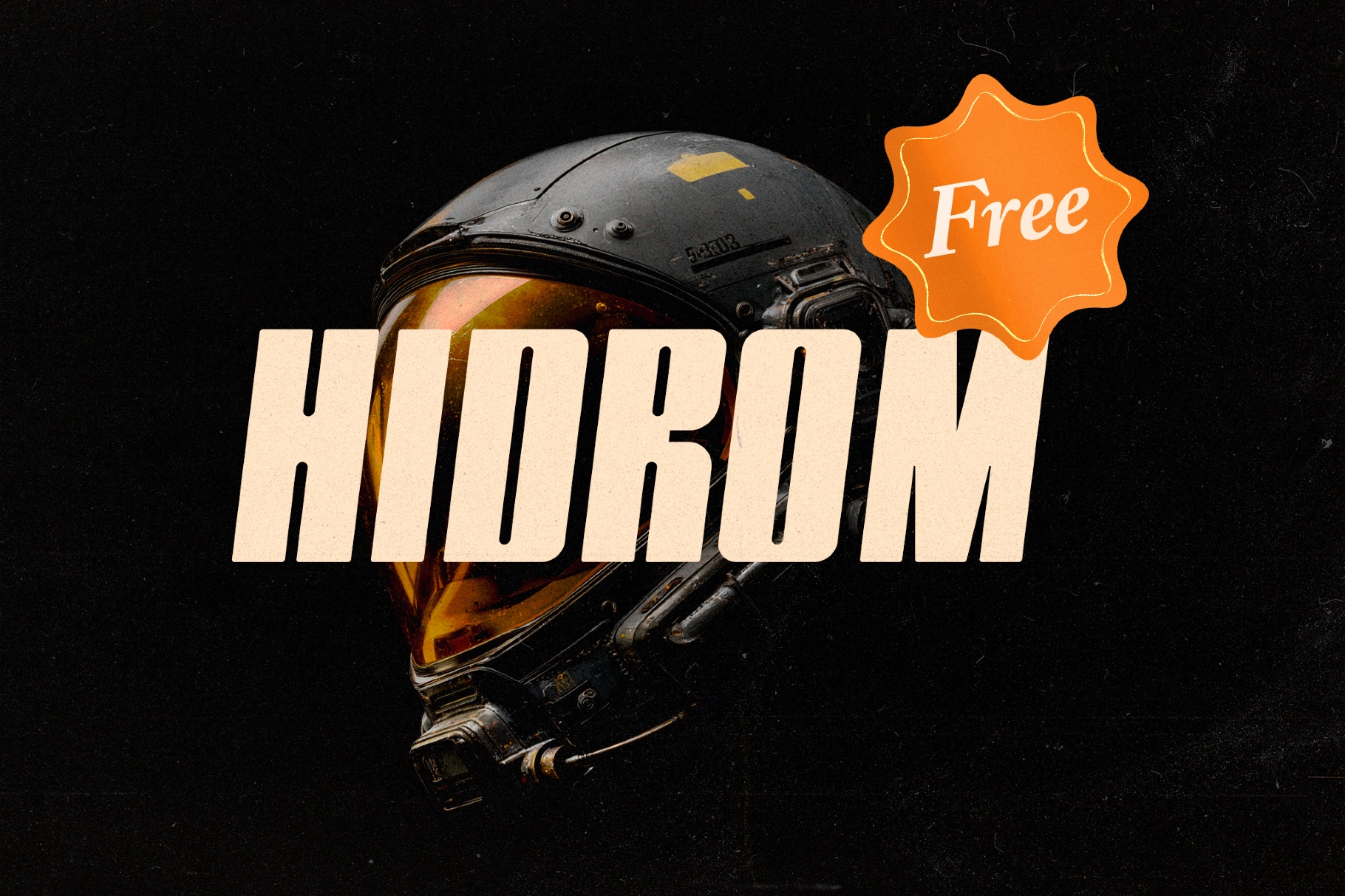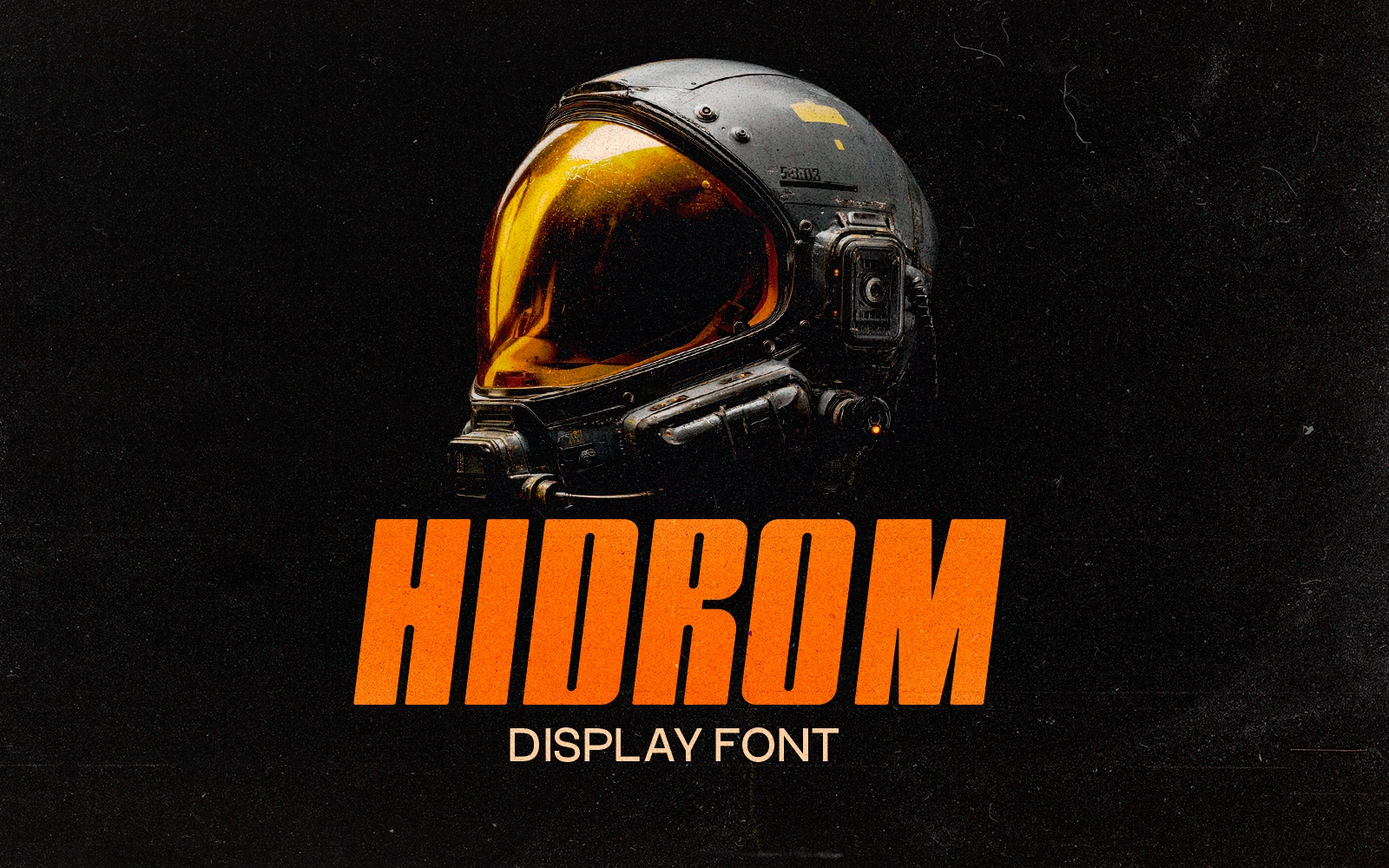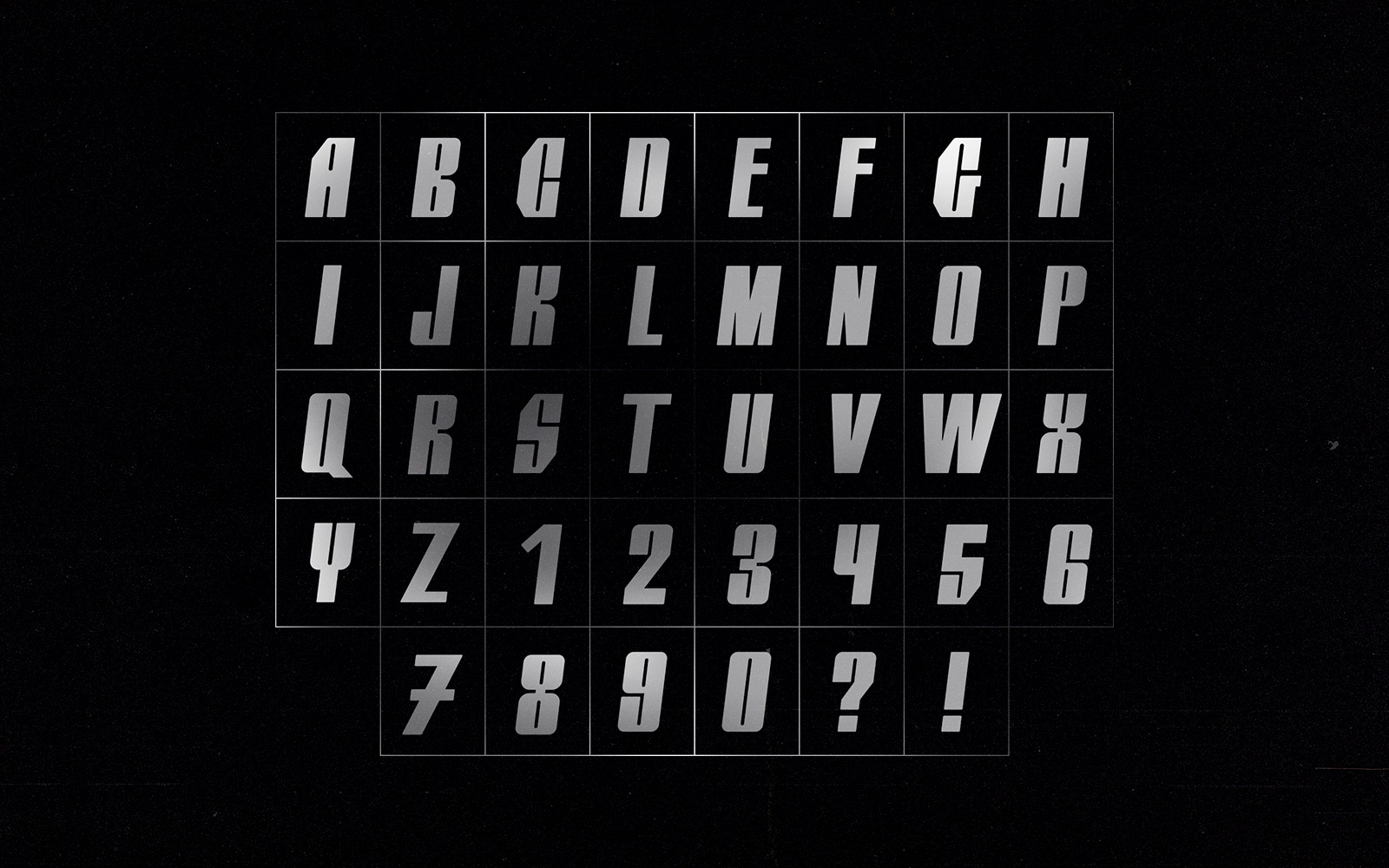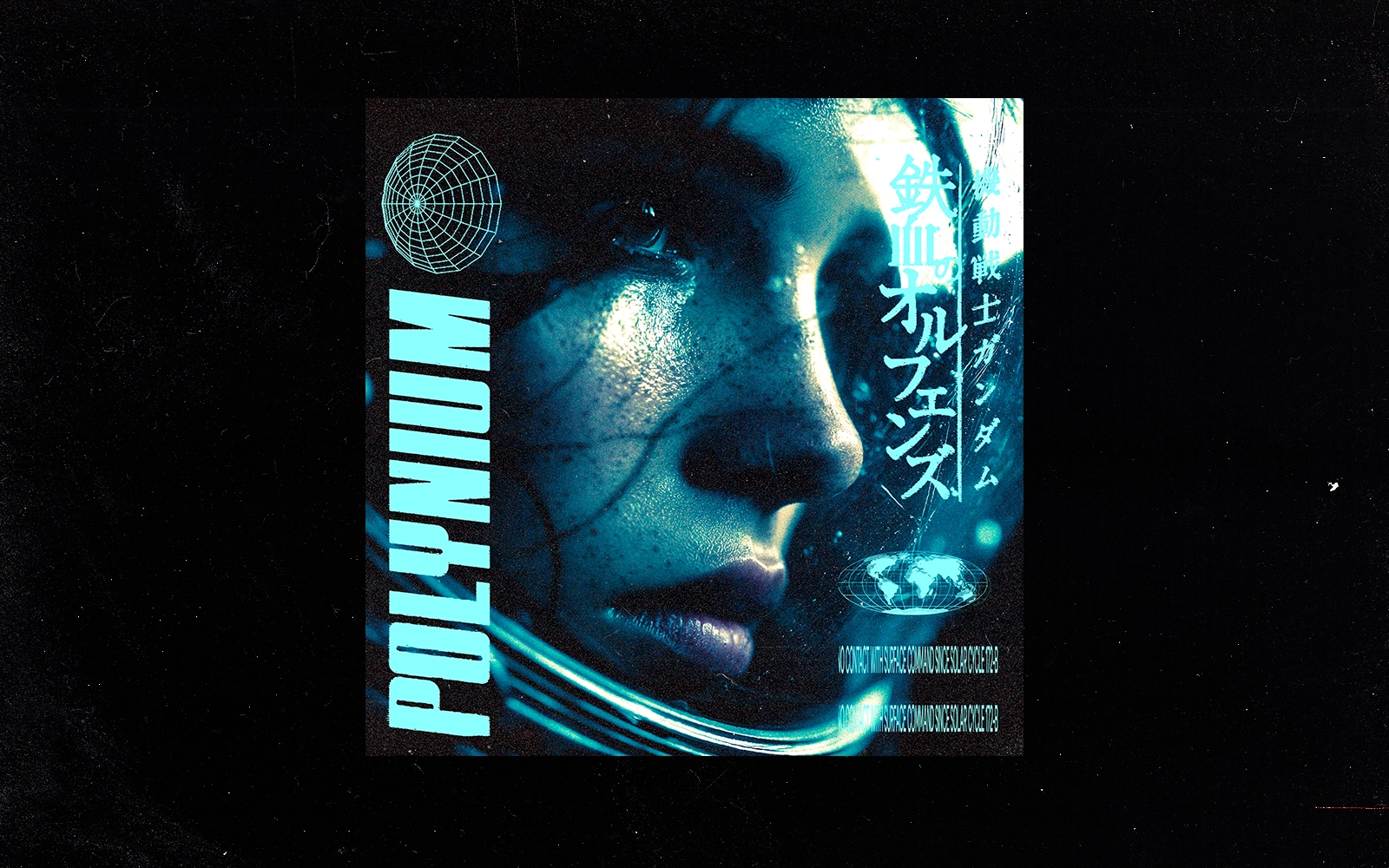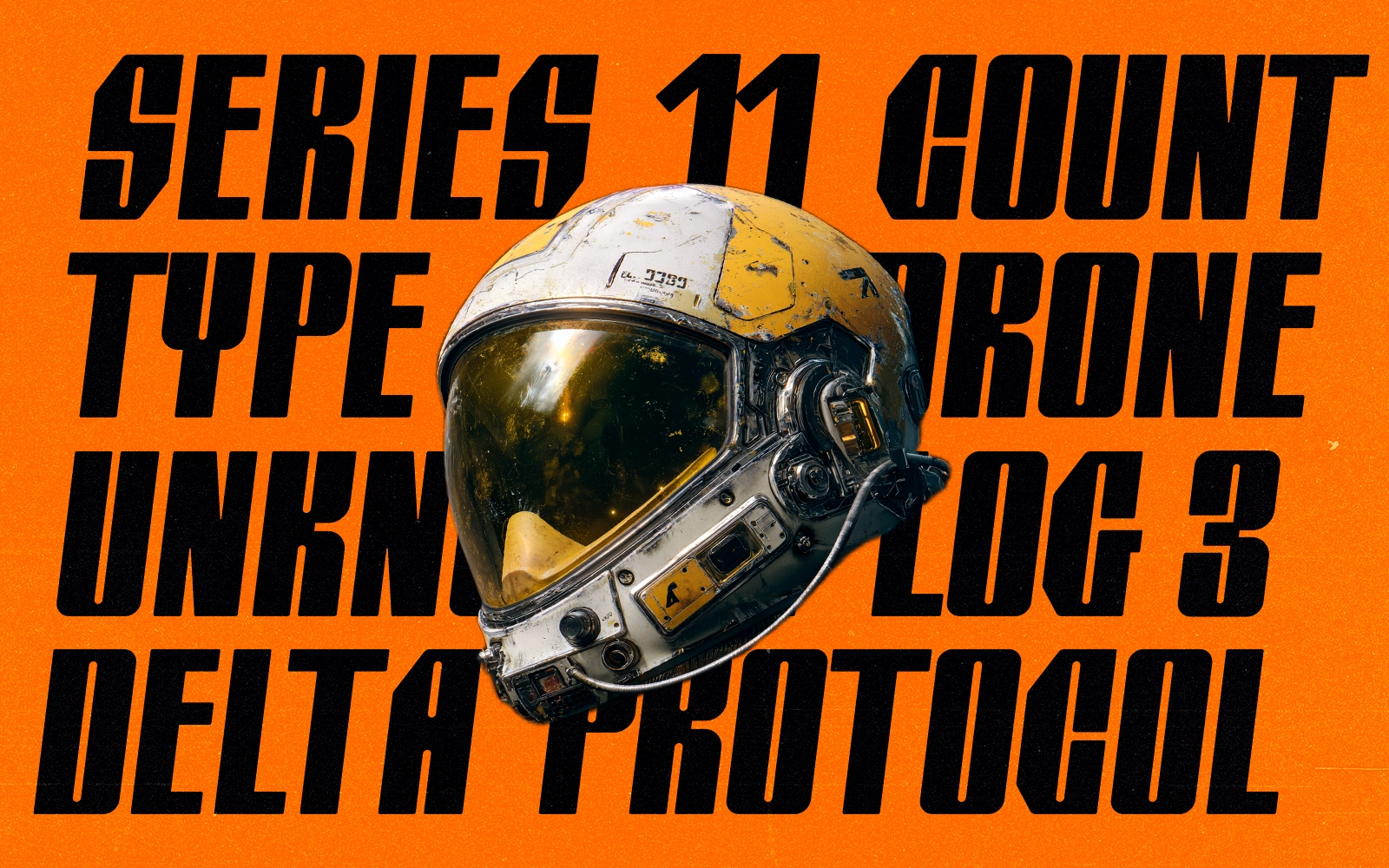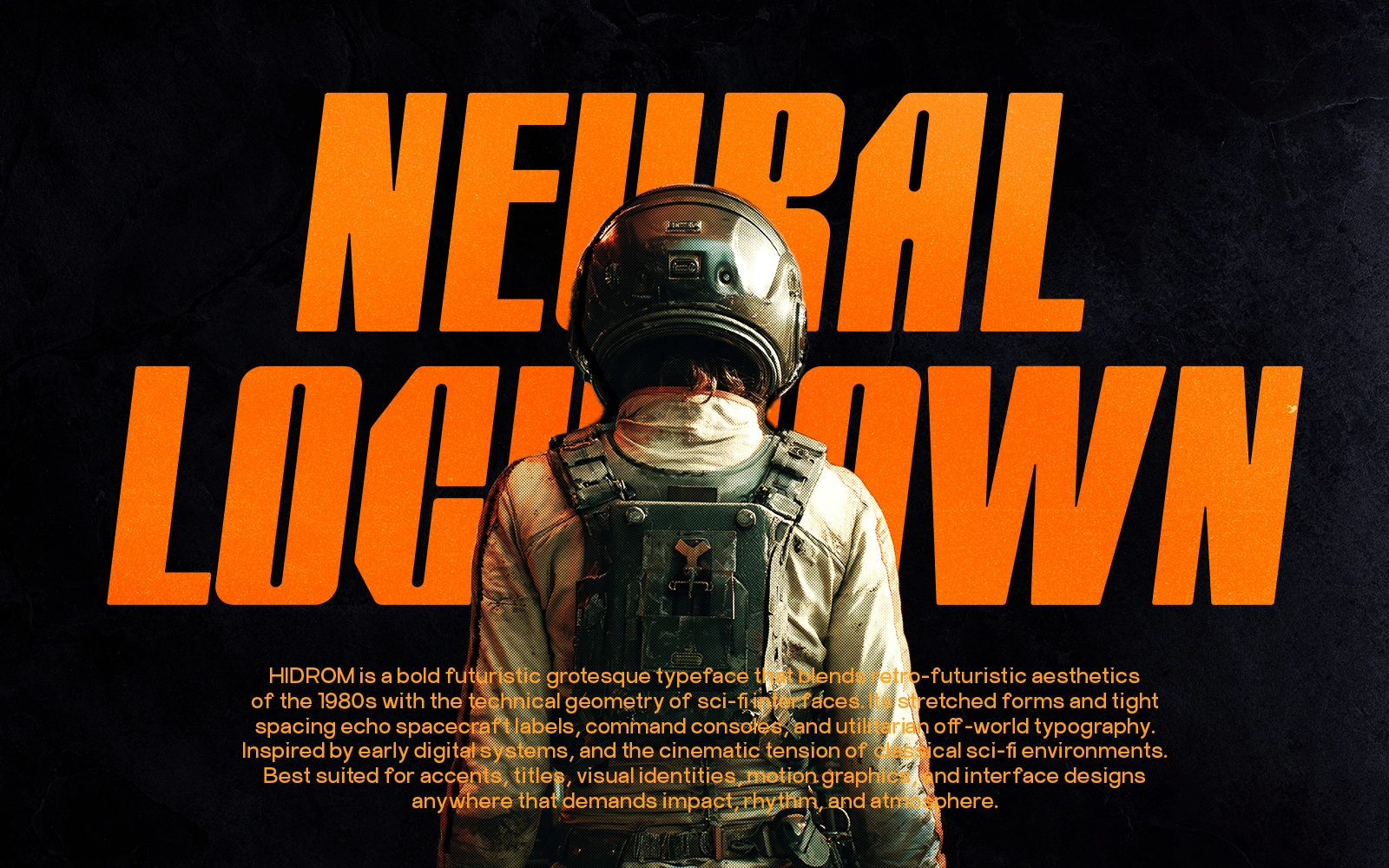
Hidrom - Display Font
HIDROM
Hidrom is a bold futuristic grotesque typeface that blends retro-futuristic aesthetics of the 80s with the technical geometry of sci-fi interfaces.